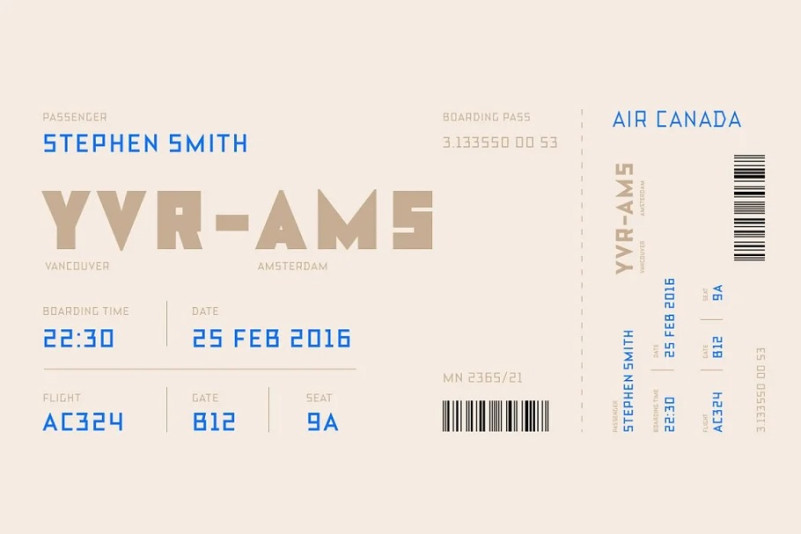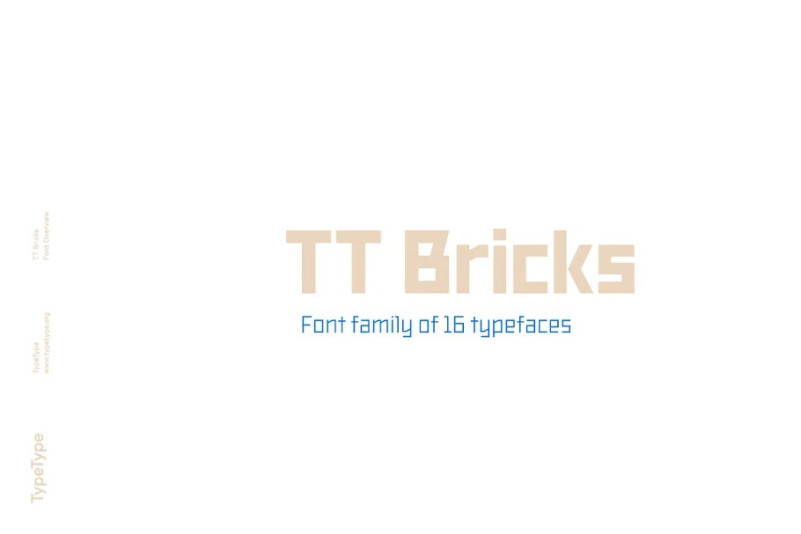
TT Bricks Font
TT Bricks font family includes 16 typefaces: Hairline, Thin, Light, Regular, Medium, Bold, ExtraBold, Black and Italics.
8 weights & 8 Italics
415+ glyphs for each typeface
Supports 158 languages (incl. Cyrillic)*
Regardless of its Soviet past, TT Bricks is a very fresh and visually powerful font family that perfectly fits the contemporary media landscape. TT Bricks is perfect for mobile apps and corporate websites, as well as for printed press layout. Thanks to the exaggeratedly simple forms of all signs, TT Bricks looks great in very small type sizes.